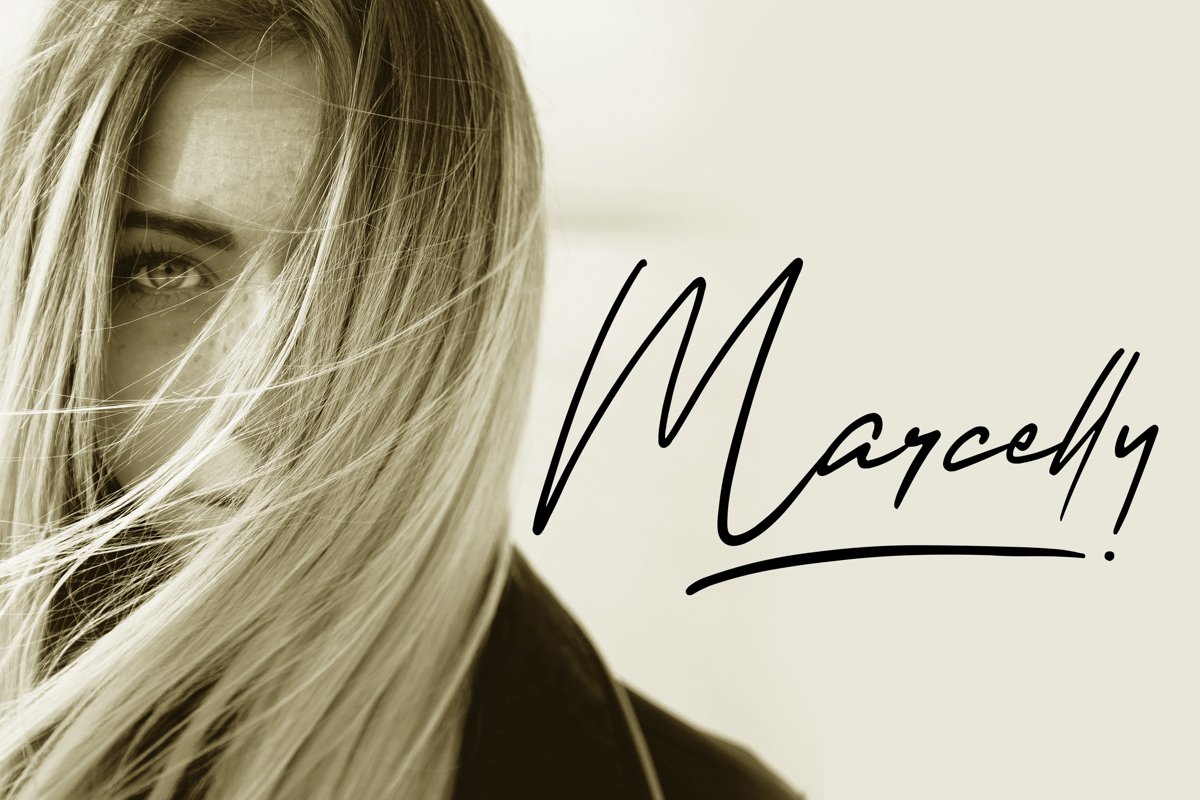
Marcelly - Beautiful Script Font
Marcelly
a set of cool fonts that mix and match
and snuggle together like one big alphabet family.
Both the Littles and Middles alphabets can stand alone on their own, or
they can mix together.
And the Talls are designed especially to cradle the Littles, so you can make cool combinations.